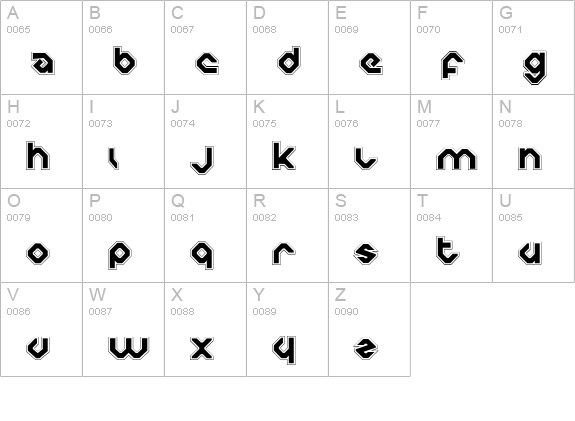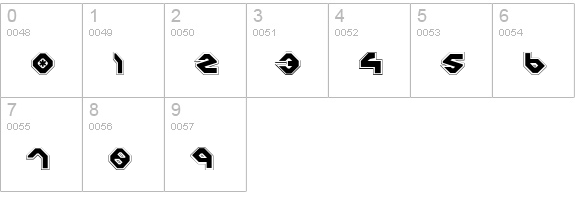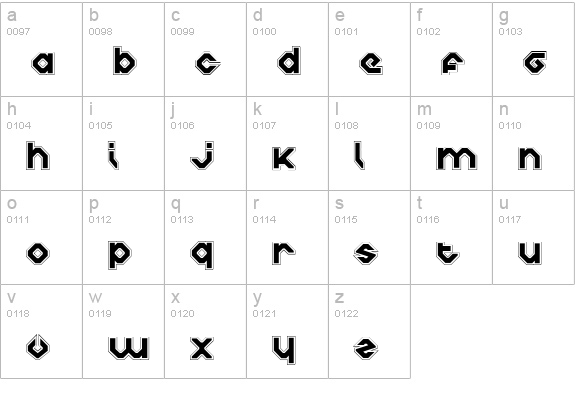
Charlie's Angles Collegiate font is a stylish and dynamic typeface that exudes a sense of confidence and sophistication. It features sharp angles and bold lines that give it a modern and edgy look, perfect for making a statement in any design project. This font is versatile and can be used for a variety of purposes, from branding and logos to posters and social media graphics. Its sleek and professional appearance makes it a great choice for anyone looking to add a touch of flair to their designs. Best of all, Charlie's Angles Collegiate font is completely free to download at FontsMarket.com. So whether you're a seasoned designer looking to freshen up your font collection or a beginner looking for a unique typeface to experiment with, this font is a must-have addition to your toolkit. Download it today and start creating stunning designs with Charlie's Angles Collegiate font!